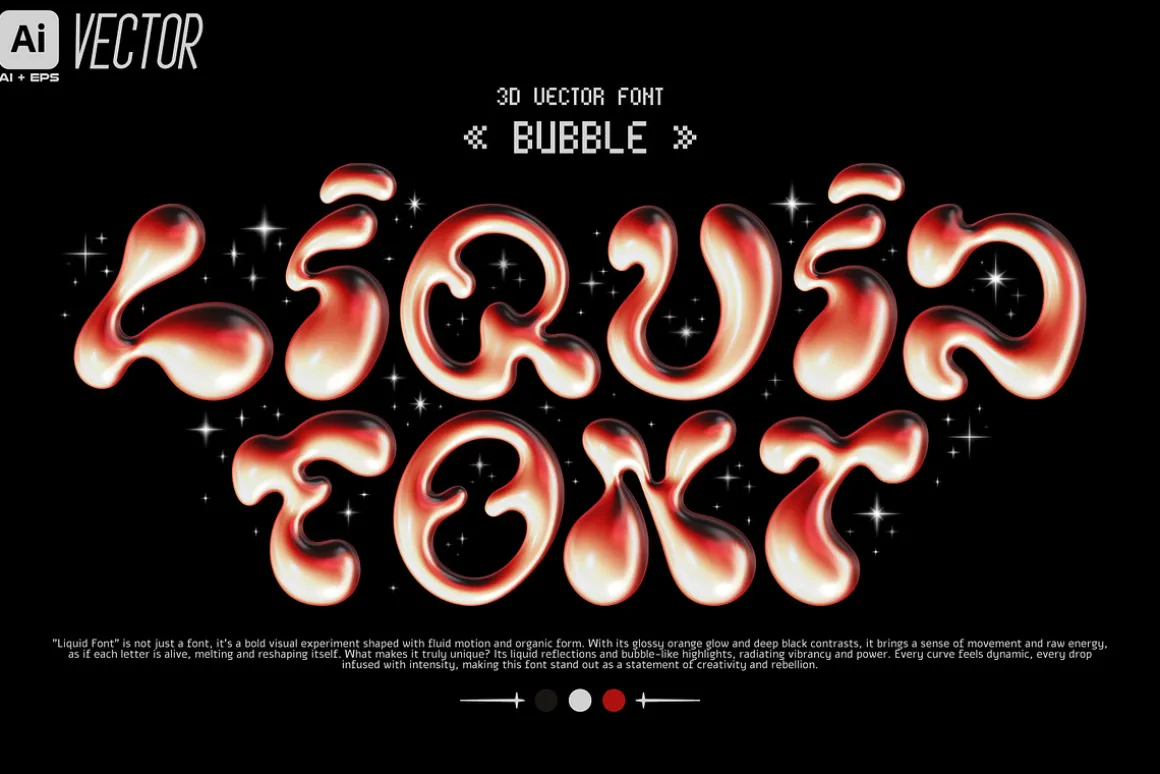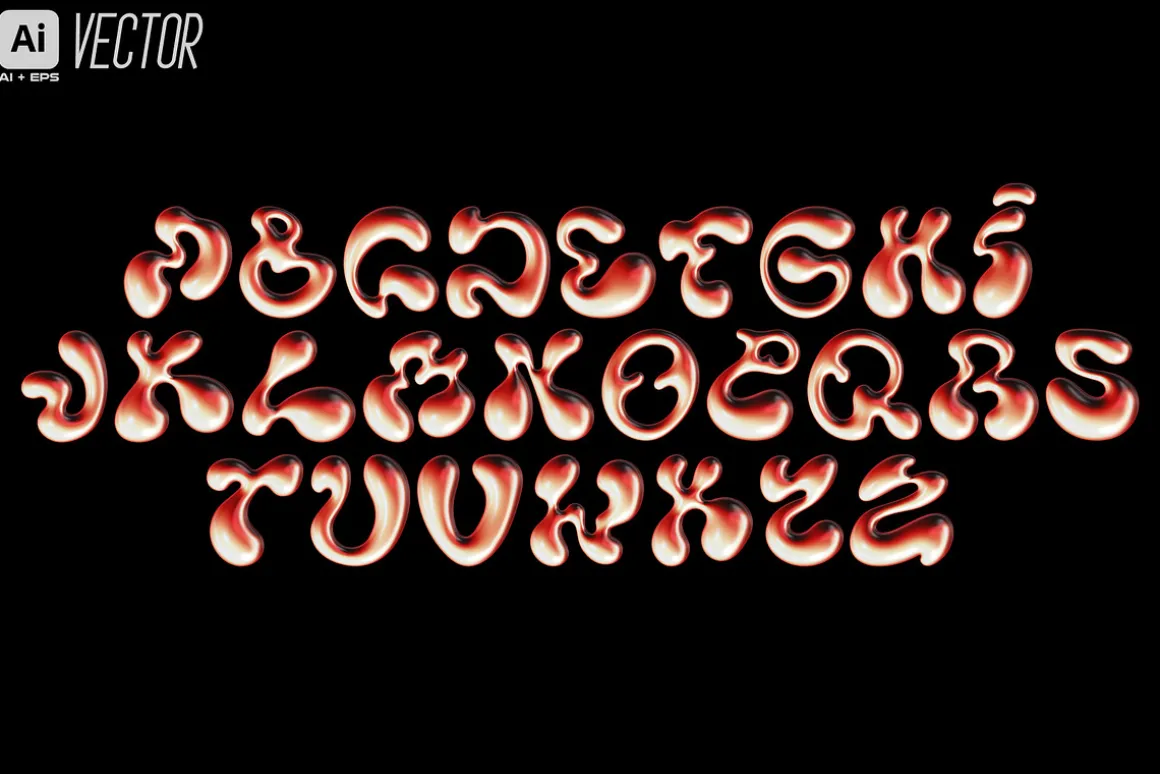
Liquid lava font. 3D inflated bubble letters in orange fire gradient with volcanic shine, glossy molten texture, and Y2K retro display style. Vector set